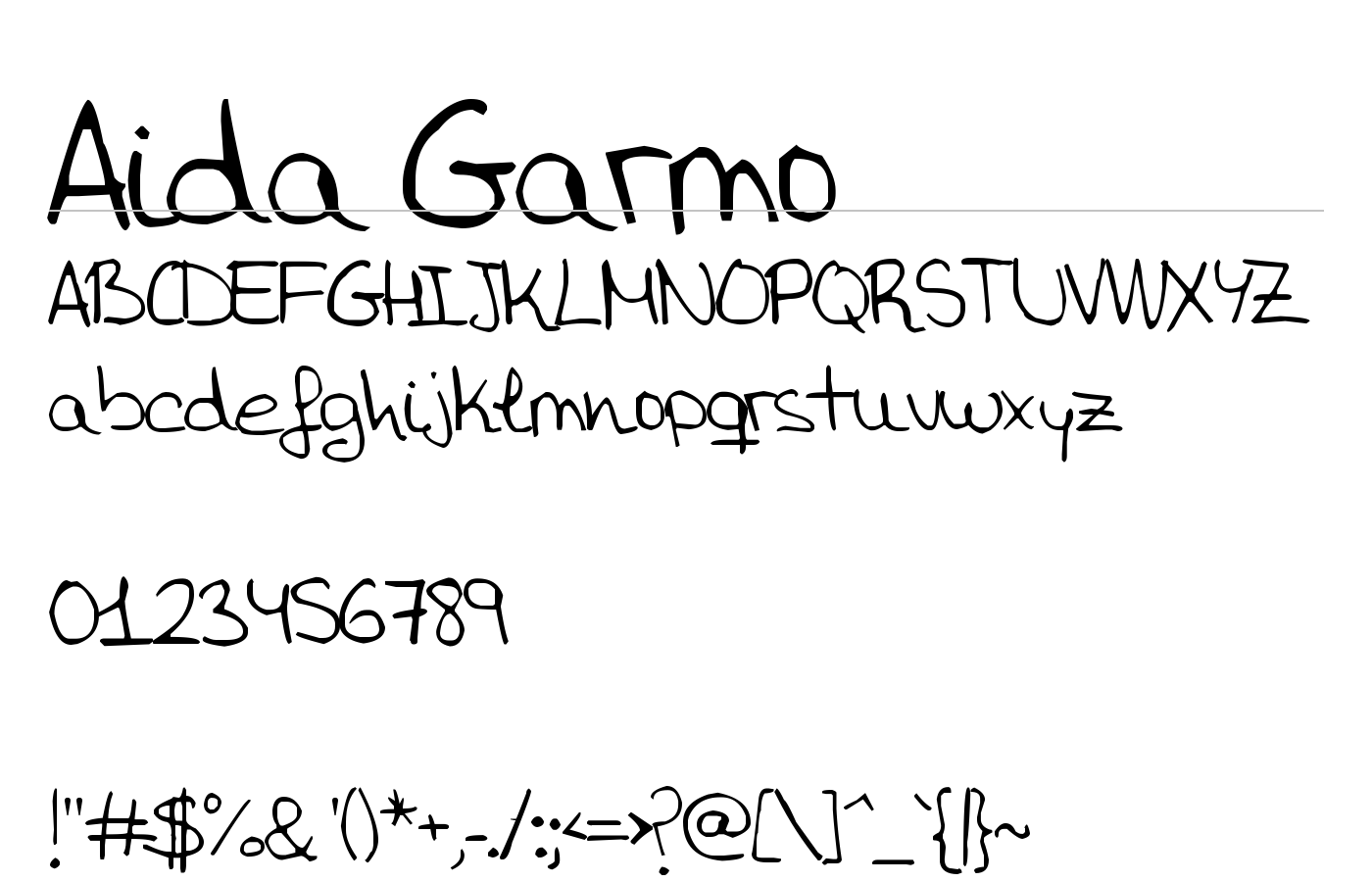
Aida Garmo is a casual, handwritten sans serif font characterized by its loose, playful letterforms with irregular strokes and a light weight. Its airy spacing and unique, friendly shapes make it ideal for creative, informal projects, adding a personal, approachable touch. This font works well for invitations, children's books, and fun branding that seeks a hand-crafted, genuine look.
Aida Garmo Font
About Aida Garmo Font
| Font family | Aida Garmo Font |
| Designer | Aída Garmo |